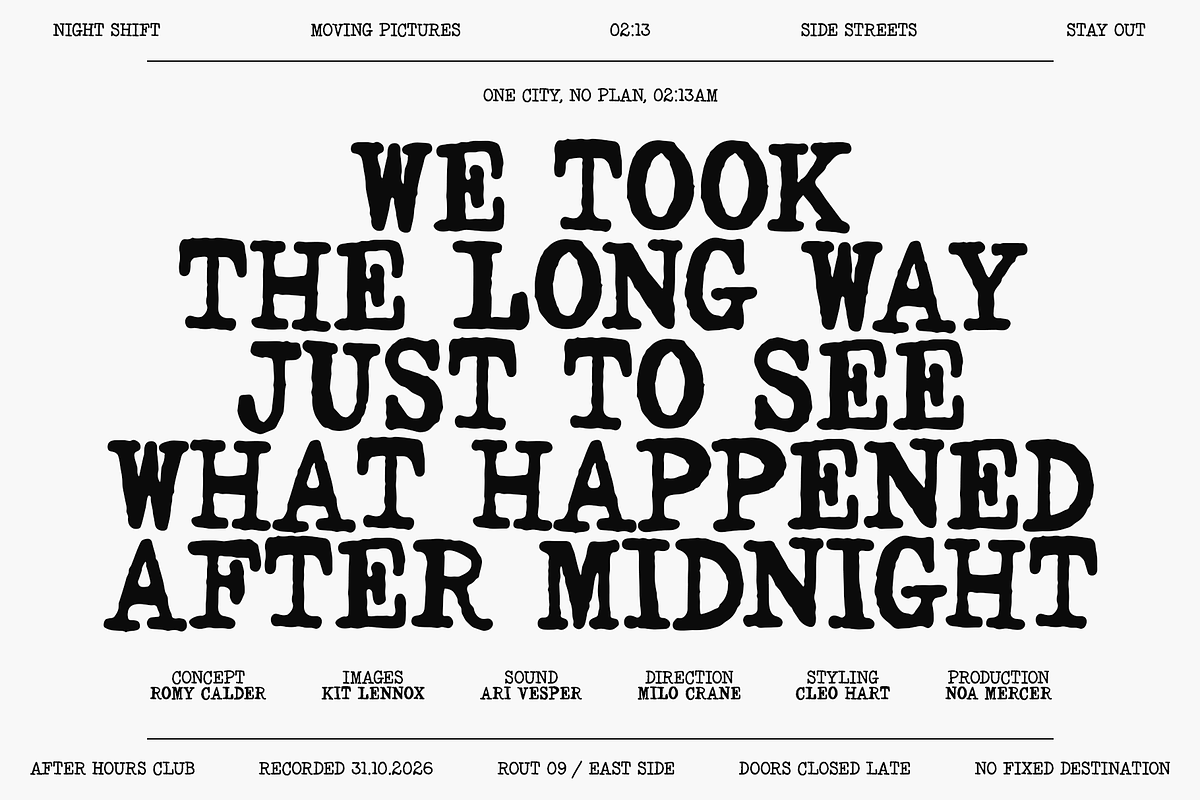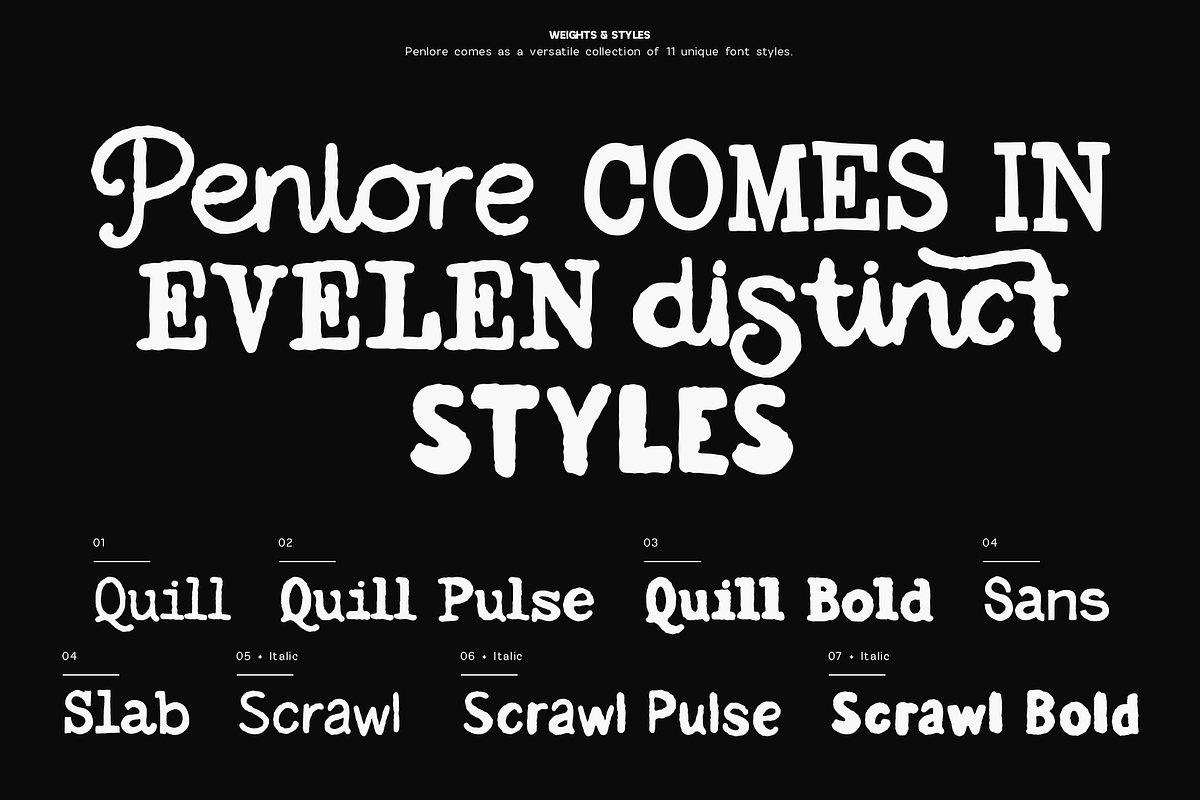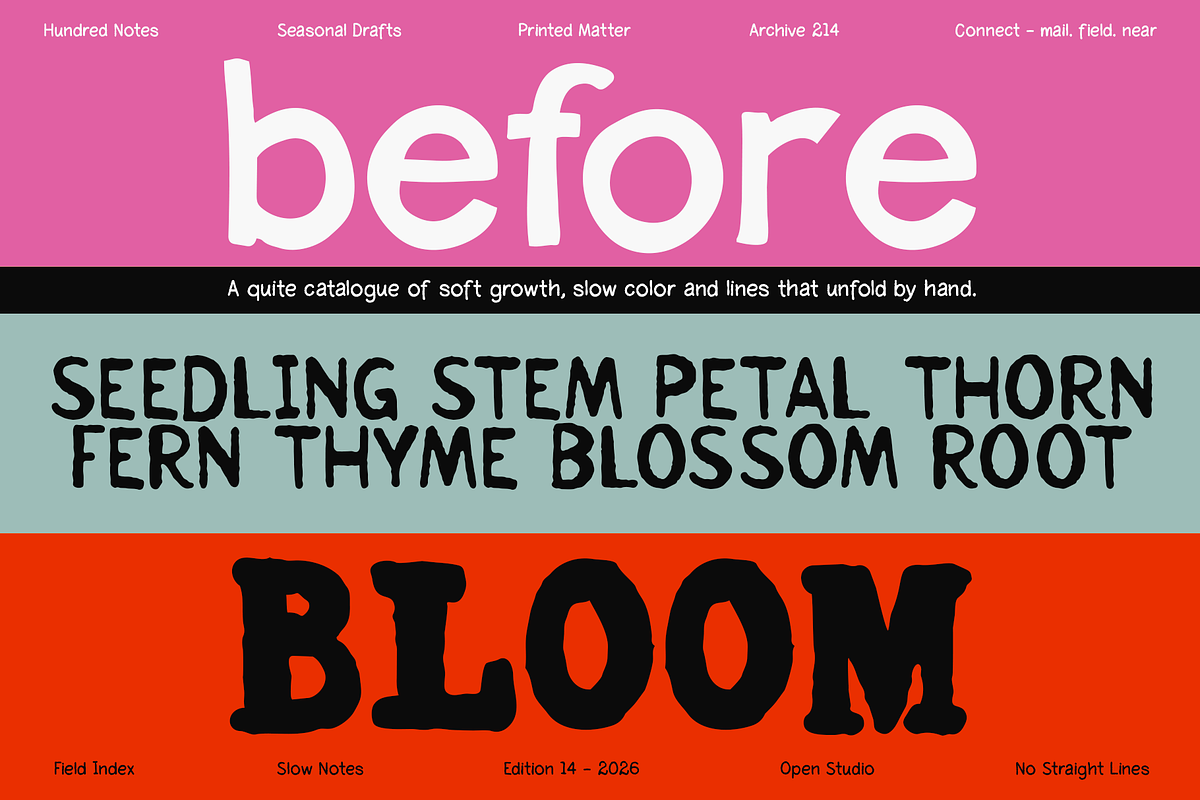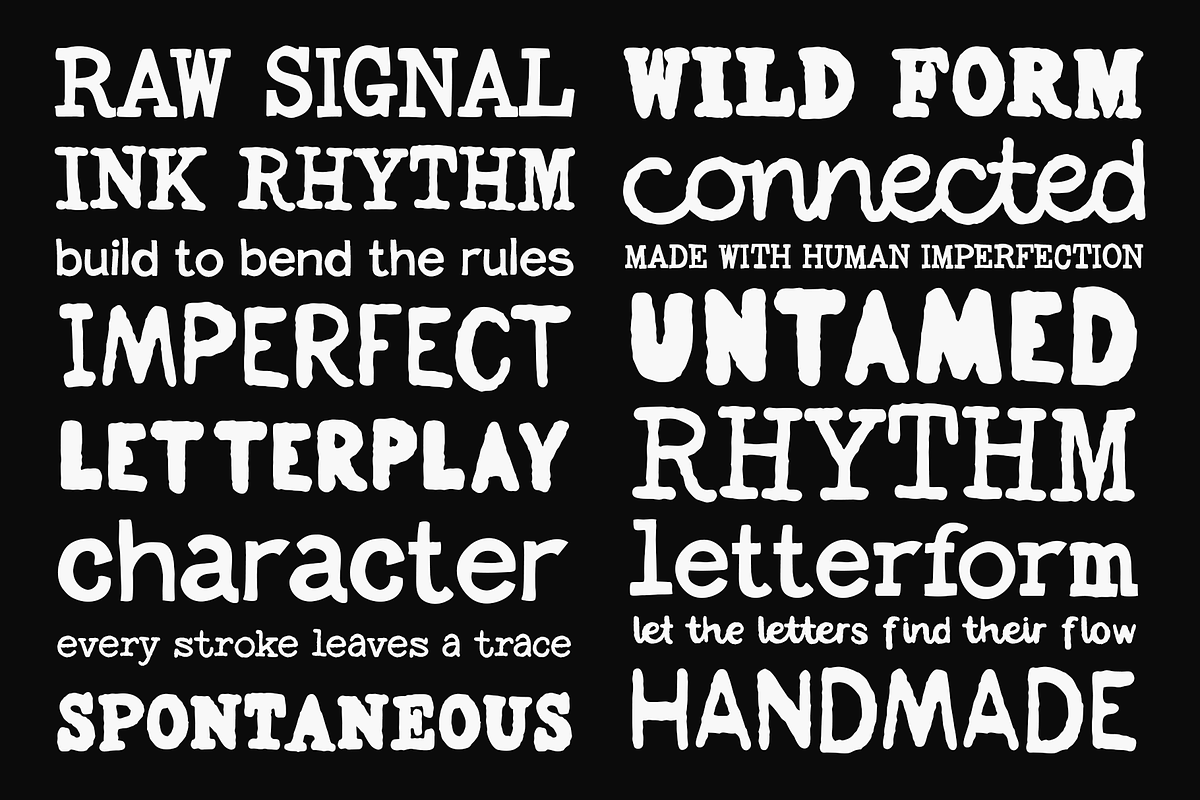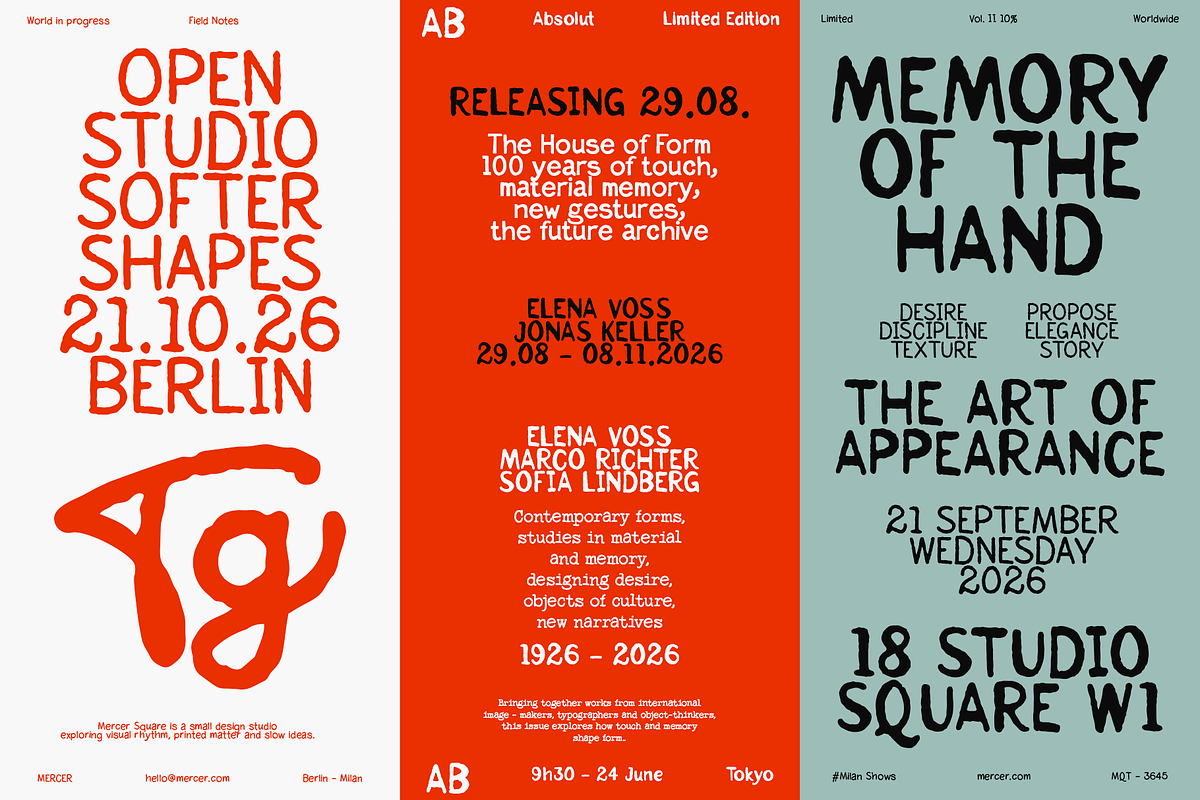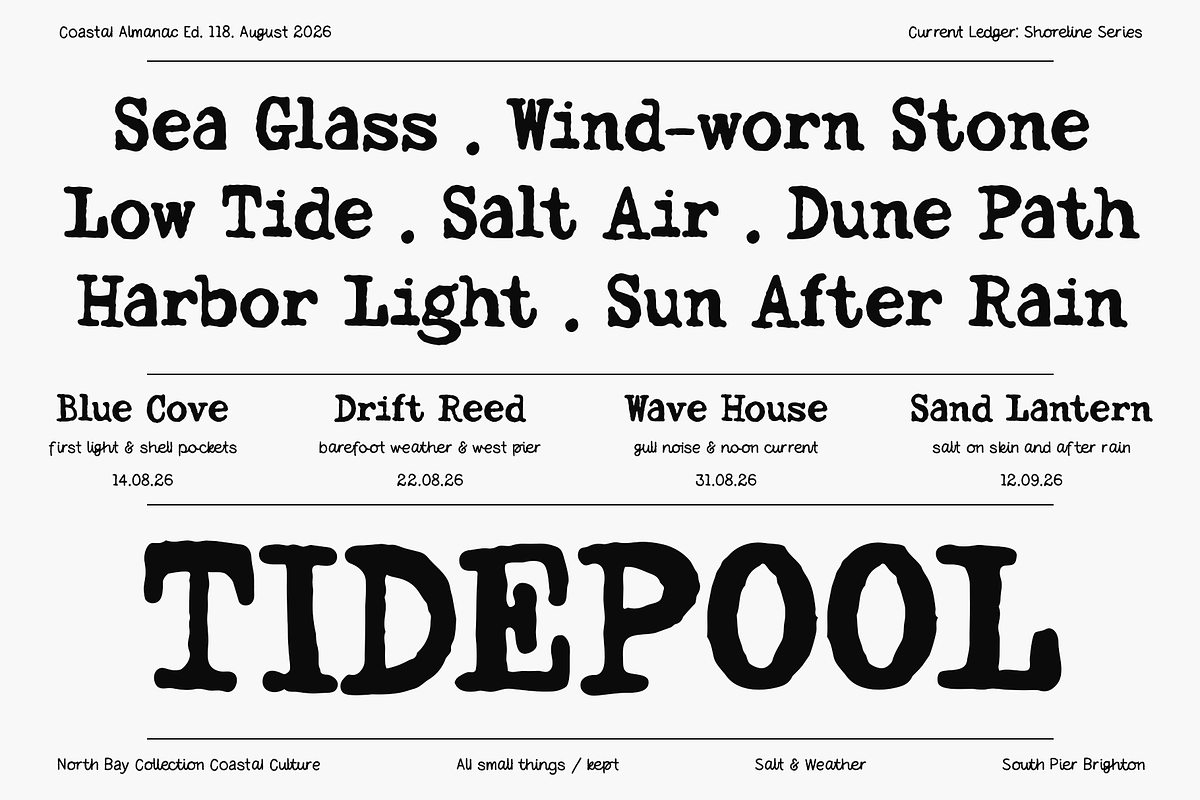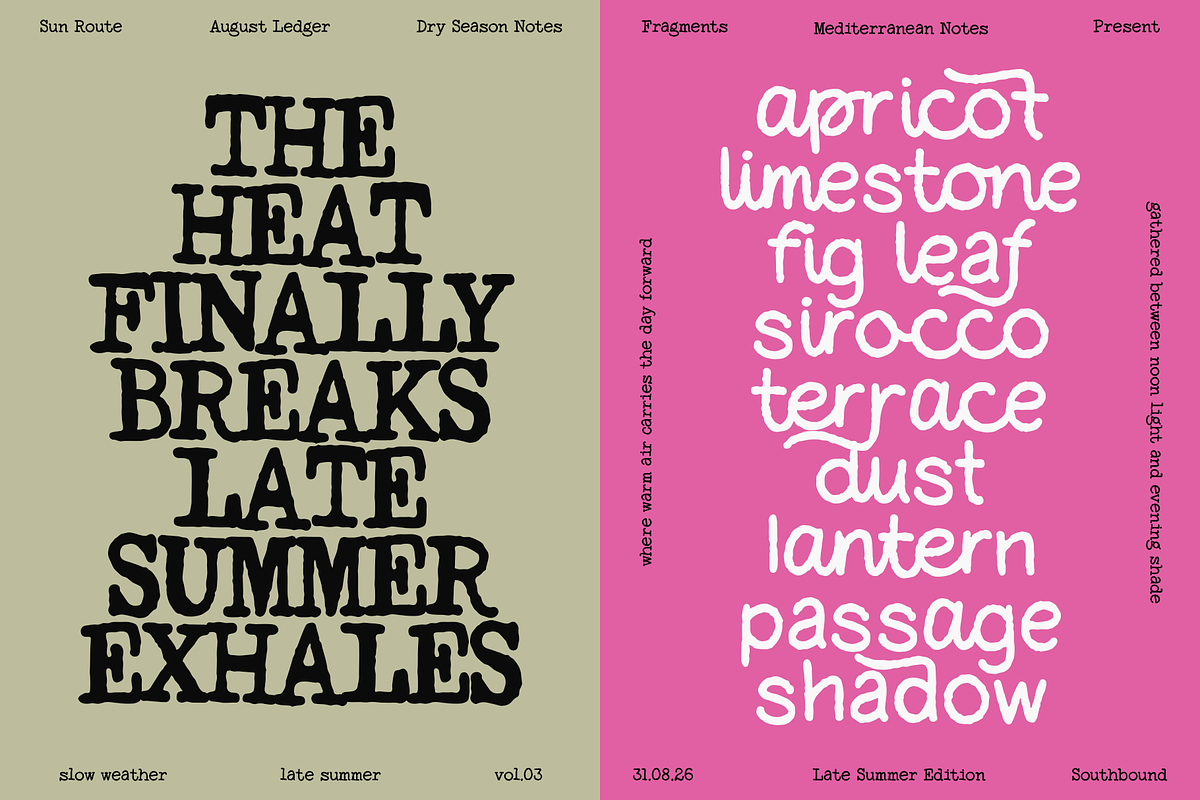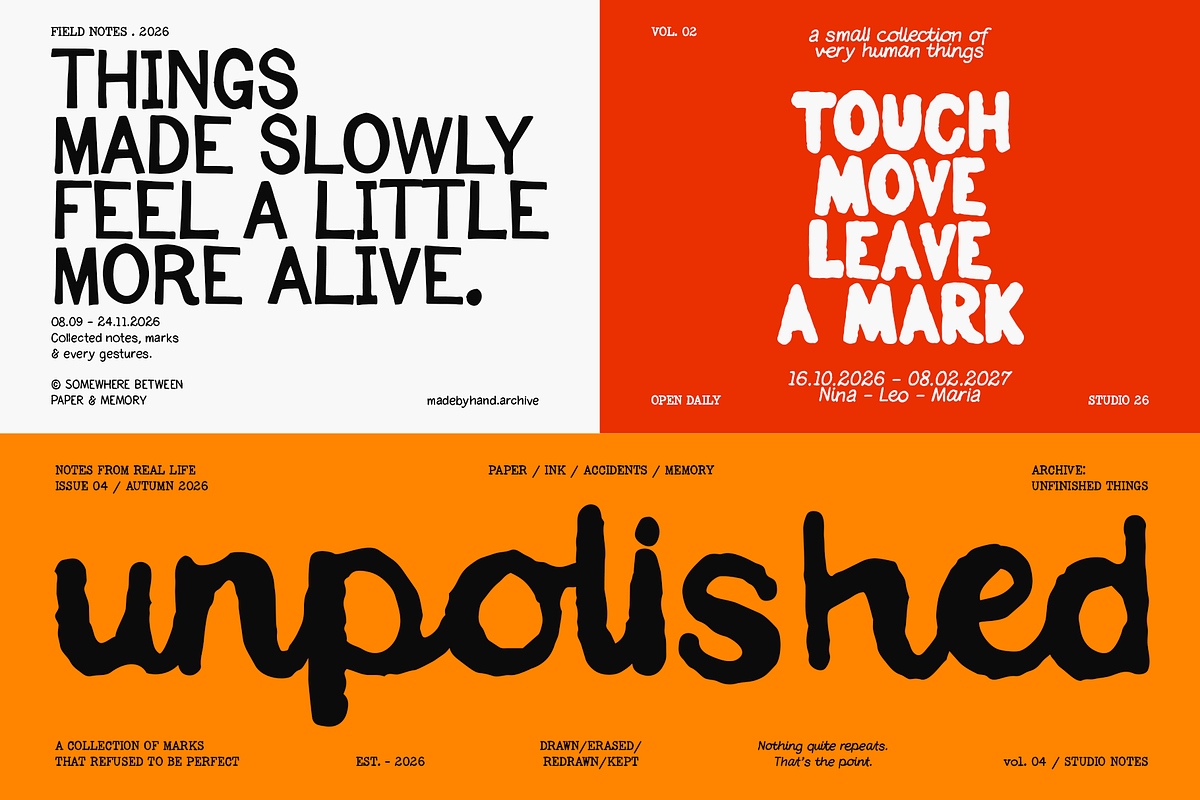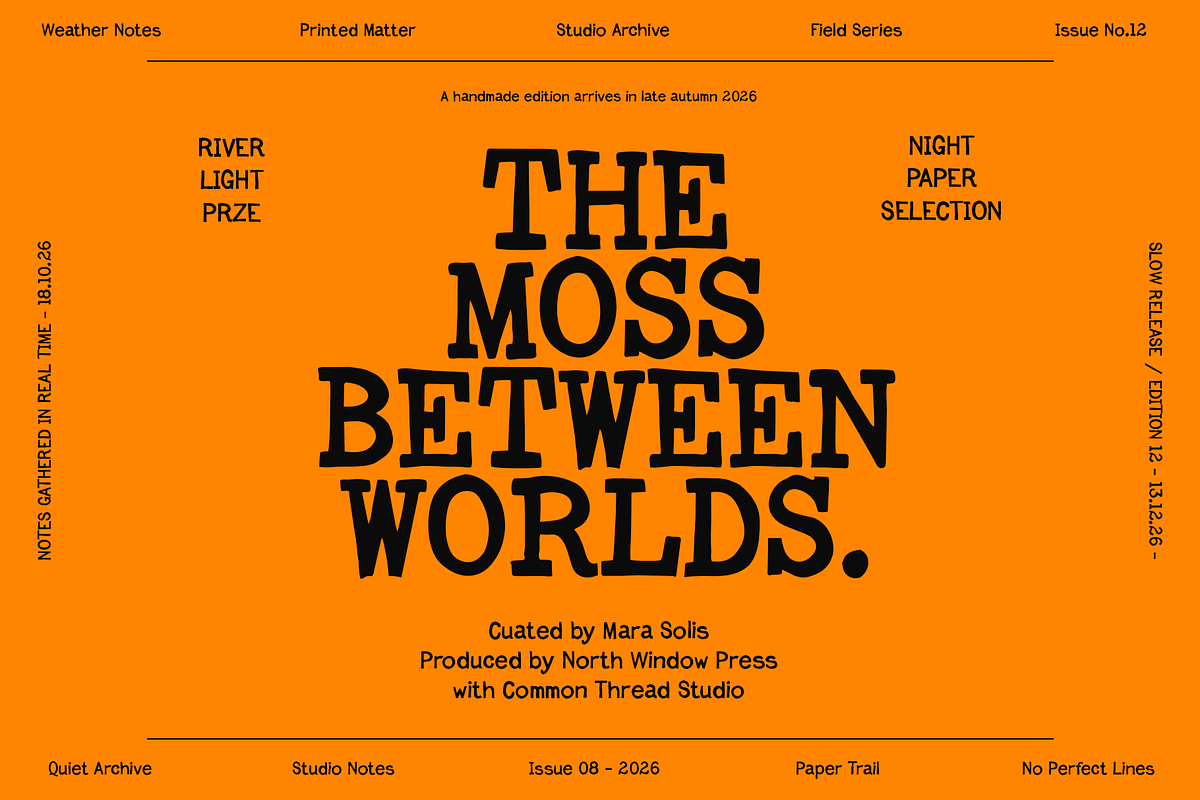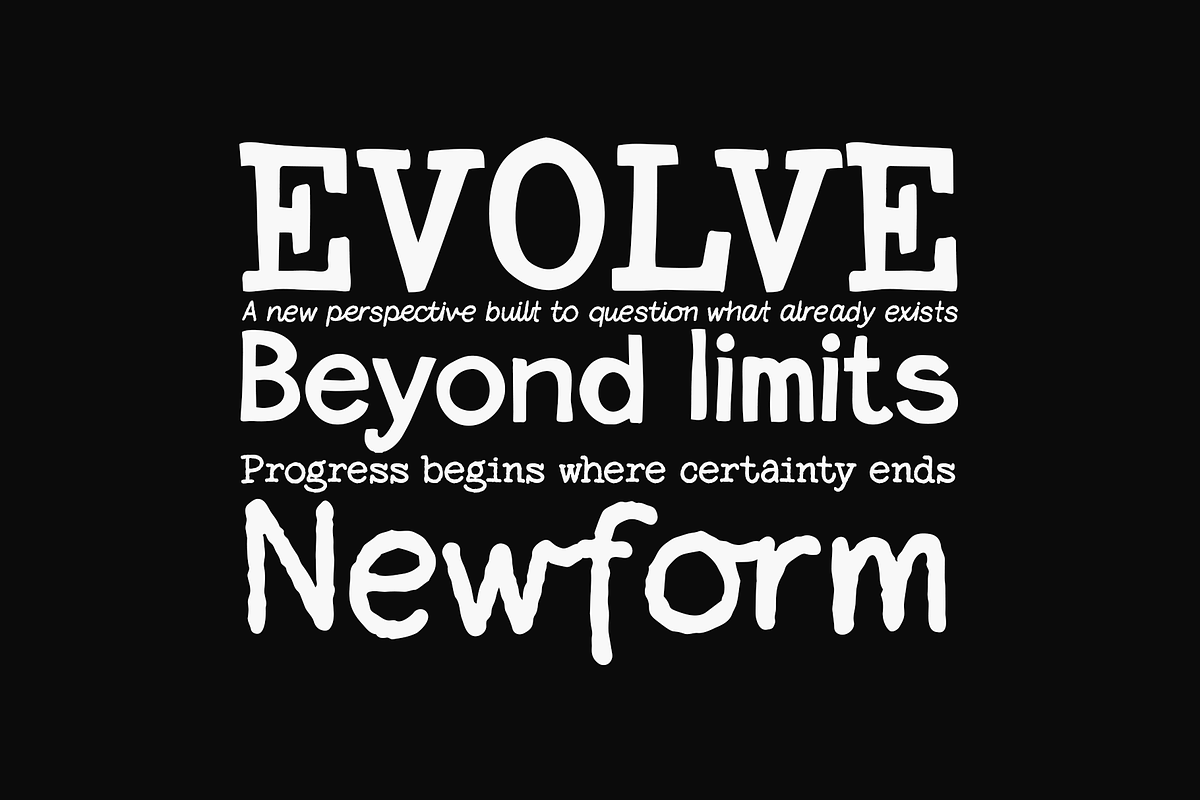
Penlore - Typeaface with 11 fonts
Penlore is a handcrafted display font family featuring 11 expressive styles, created to bring warmth, personality, and playful rhythm to every design. Built from imperfect, organic strokes, the family combines handwritten charm with bold display impact, giving you a versatile typographic toolkit for distinctive branding and creative layouts.
From characterful serif and slab styles to relaxed sans, script, scrawl, outline, and bold variations, Penlore makes it easy to mix contrasting letterforms while keeping a consistent visual identity. Use a single style for a strong headline or combine multiple styles to create layered, energetic typography.
Penlore is ideal for logos, branding, packaging, posters, editorial designs, book covers, restaurant identities, café menus, music artwork, beauty products, social media graphics, invitations, labels, and promotional campaigns. Its handmade texture works especially well for vintage-inspired, botanical, coastal, artistic, and lifestyle projects.
11 coordinated font styles
Handcrafted and naturally imperfect letterforms
With its wide variety of styles and authentic handcrafted character, Penlore is more than a single display font - it is a complete creative type family designed for memorable visual identities, expressive headlines, and typography that feels genuinely human.